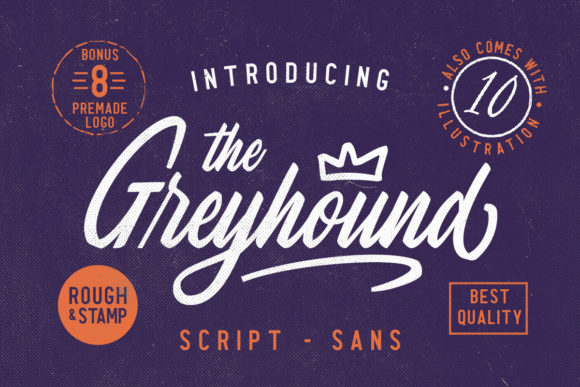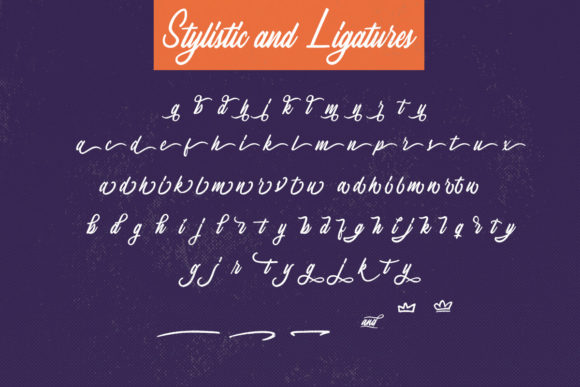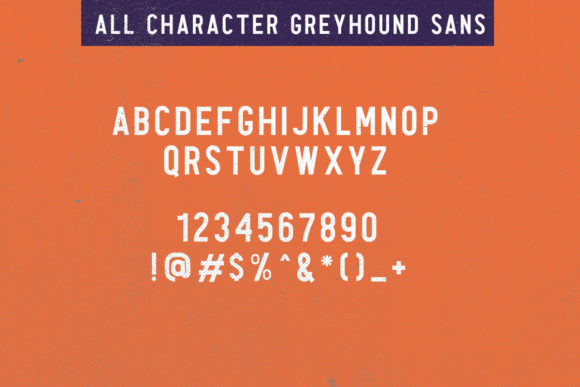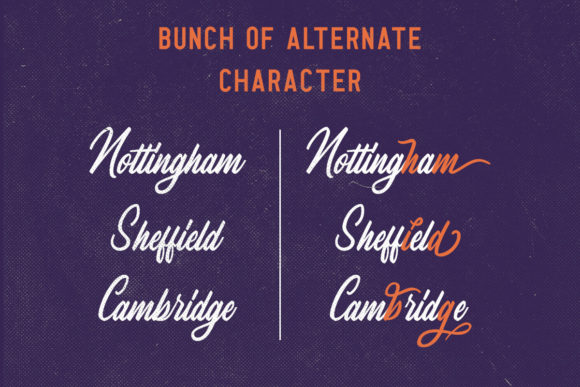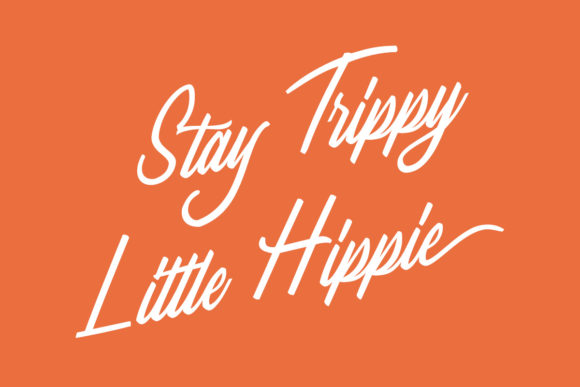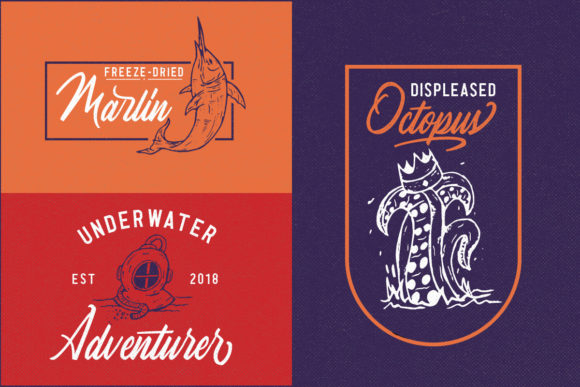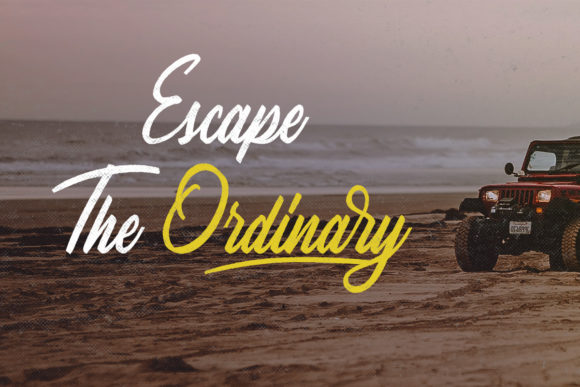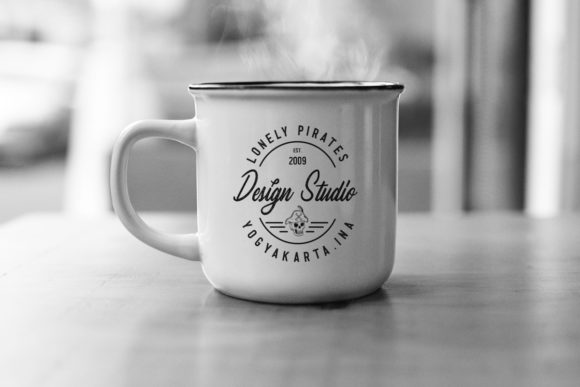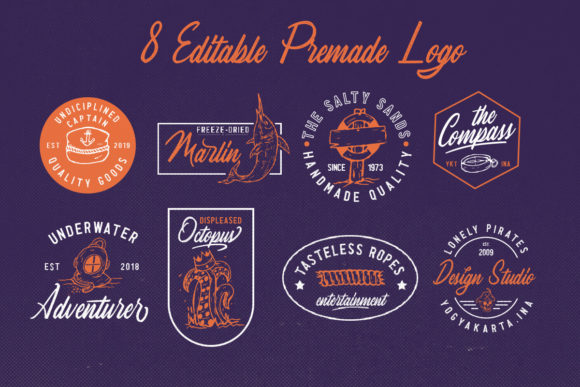
The Greyhound Family Font
About The Greyhound Family Font
The Greyhound family is a great font selection for a big range of design projects. These fonts will add a beautiful and light retro charm to any design project!